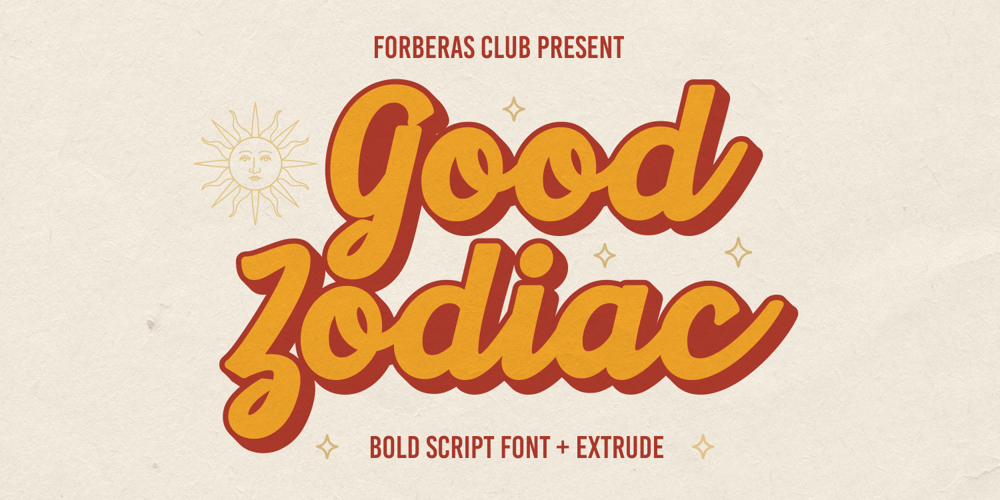
Good Zodiac Font Family was designed by ANGGI HERMAWAN and published by Forberas Club. Good Zodiac contains 2 styles and family package options. Good Zodiac is a Vintage Retro font that will make your designs look classic, Farmhouse, Boho, and Feminine. It is a great font for events, Wedding Project, signature, album covers, logos, branding, magazines, social media posts, advertisements, but it also works great for other projects. Add it to your fonts’ library, and it will enhance your creativity!